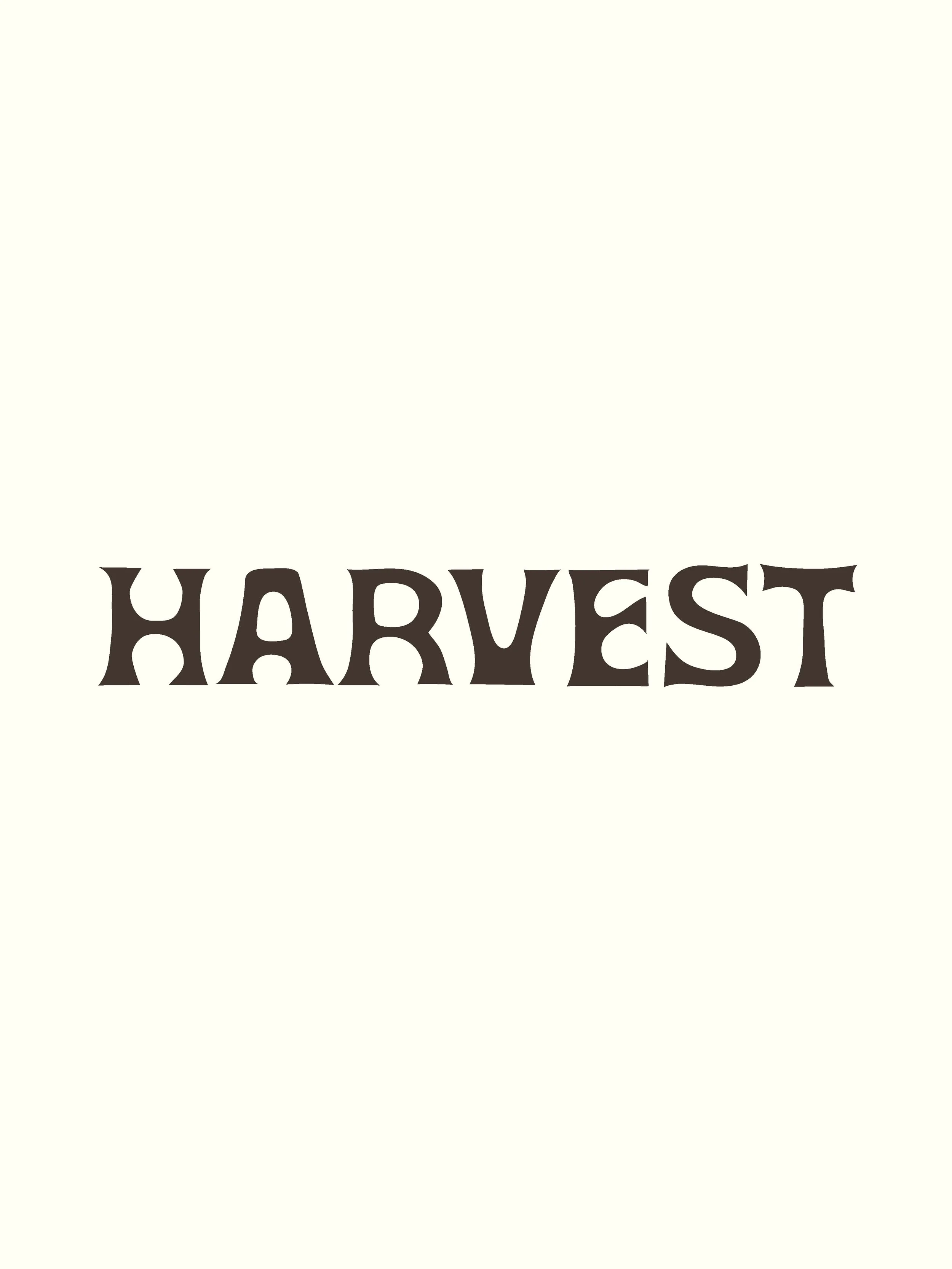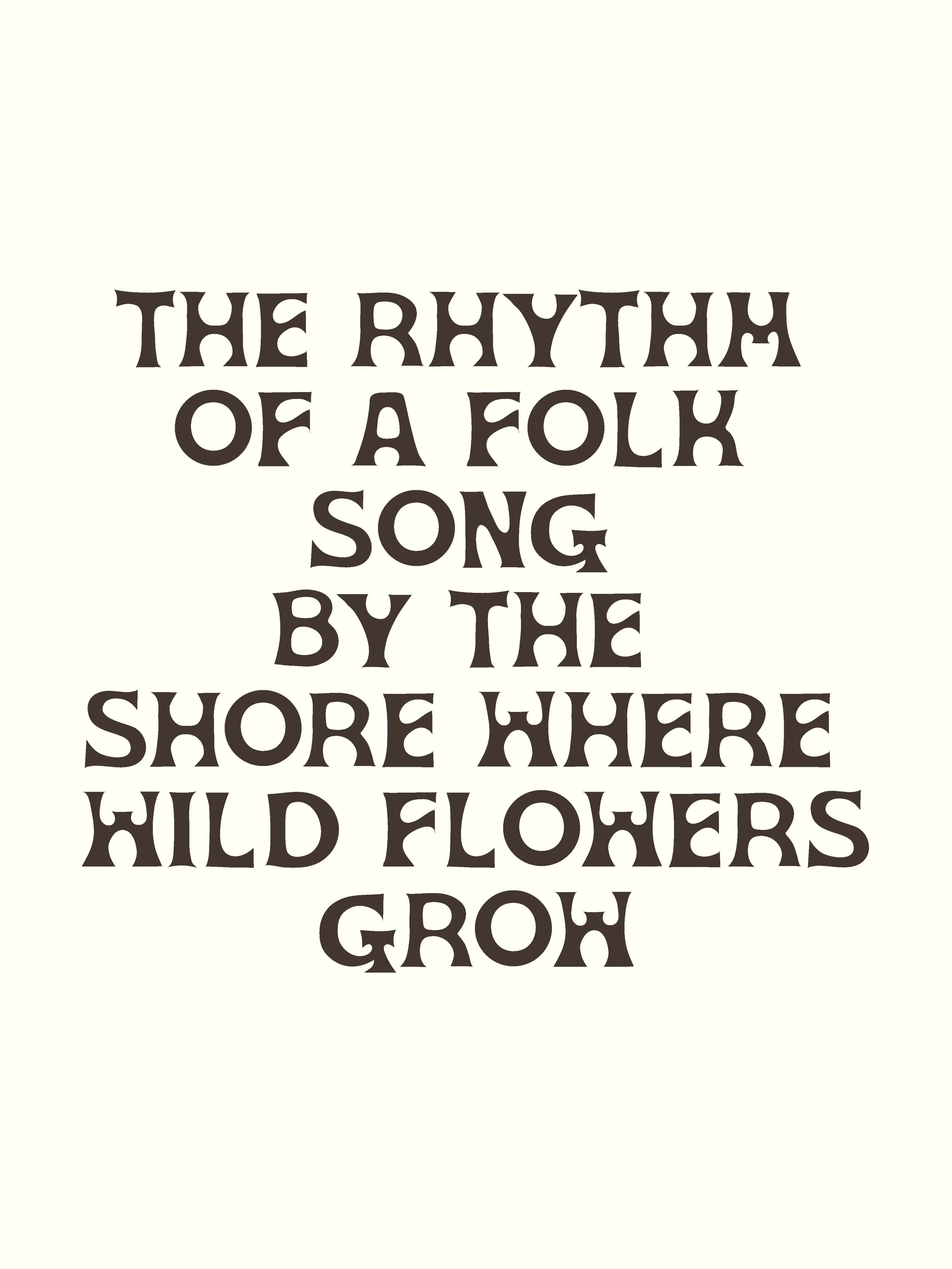
Harvest | Hand Drawn Display Font
Harvest is an all-caps, hand-drawn display font inspired by the spirit of early Newport Folk Festival posters, seaside gardens, and the small-town folk charm of places like Monterey & Big Sur. With its imperfect lines and woodsy warmth, Harvest carries the feeling of DIY printmaking, sun-faded flyers, and handmade posters.
This font is designed especially for logos, titles, and display use—where character and personality matter more than polish. Its uneven edges and organic flow make it perfect for capturing the free-spirited energy of the ’60s and ’70s folk scene, Topanga Canyon aesthetics, and homespun design.
A–Z uppercase letters only
No numbers or punctuation (this is intentionally a logo/display-focused font)
Perfect for:
Folk-inspired logo design
Posters, flyers, and album covers
Branding that calls for a natural, handmade tone
Editorial layouts, book covers, and zines
Any project that needs a kooky, nostalgic, woodsy edge
Harvest isn’t about precision—it’s about mood. Use it when you want your work to feel hand-shaped, a little imperfect, and full of seaside folk charm.